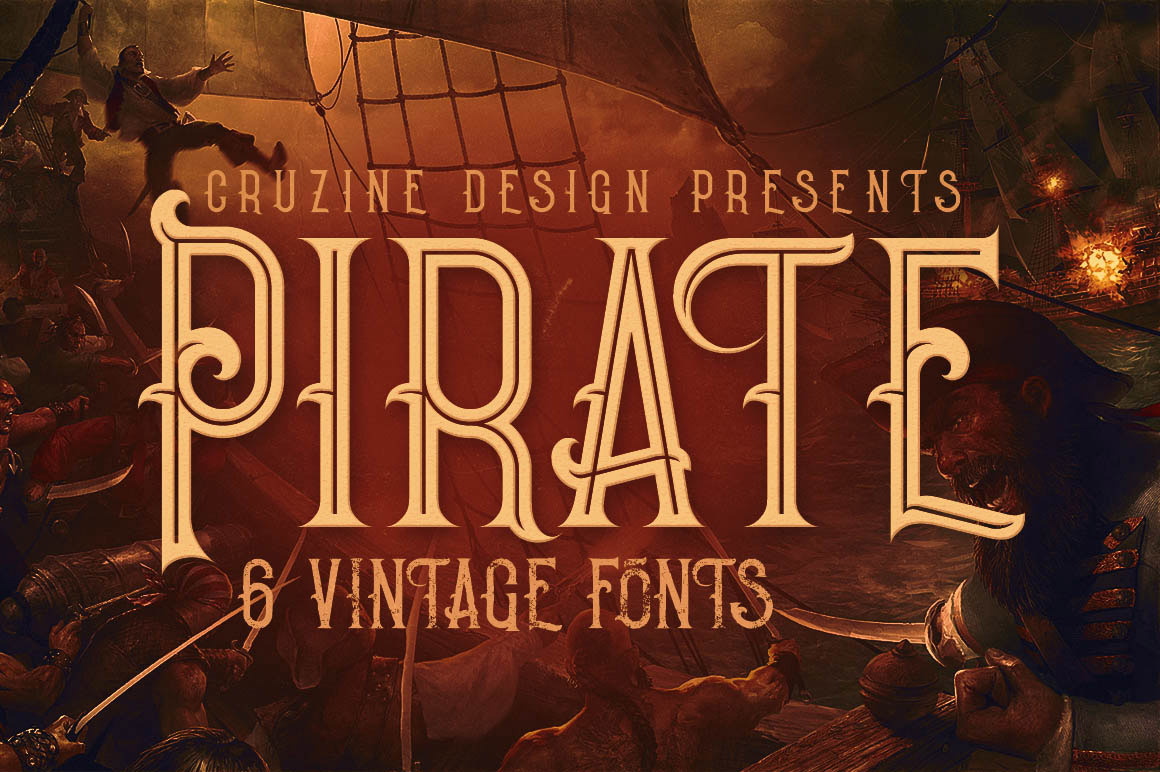
Pirate- Vintage Style Font
Unique retro or vintage style custom serif font with 6 styles: regular and grunge, inline and inline grunge, shadow and shadow grunge.
Exciting, romantic font. I like the variety of styles. Saves a ton of time not having to manually edit one basic font. I like the legibility of the words as well. Many decorative fonts are only good for one or two words before you can no longer follow the text, but this font remains easy to read. I wish the apostrophe was a little larger. Overall it's a killer font and a great value.